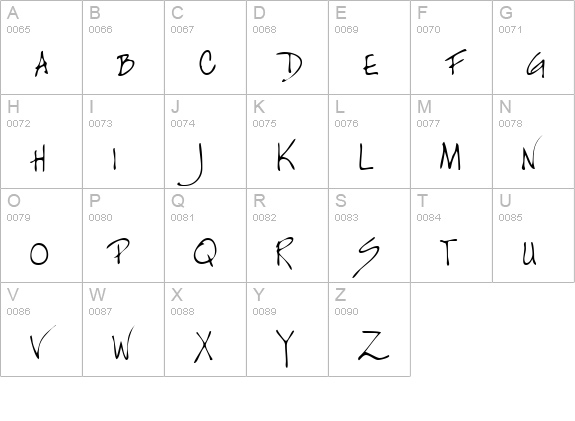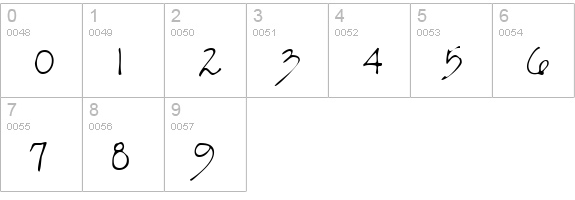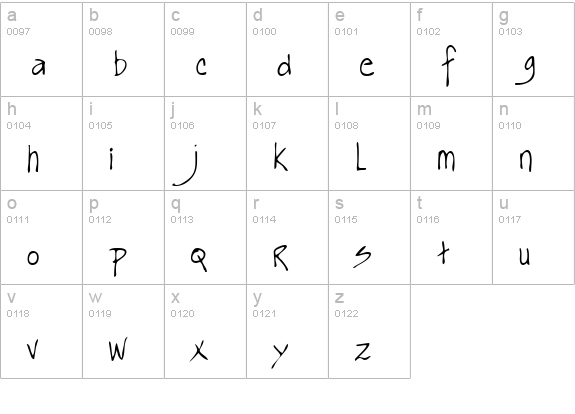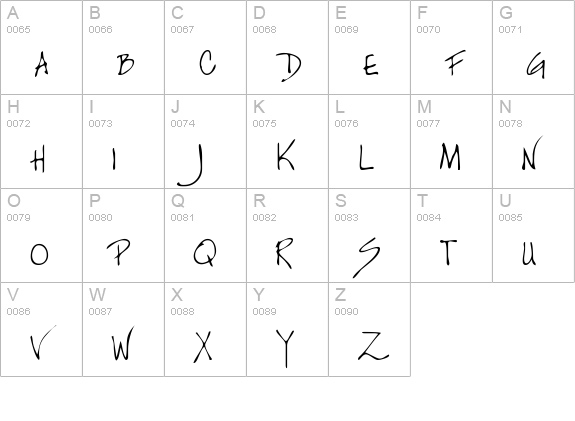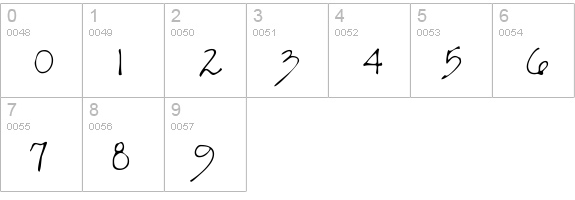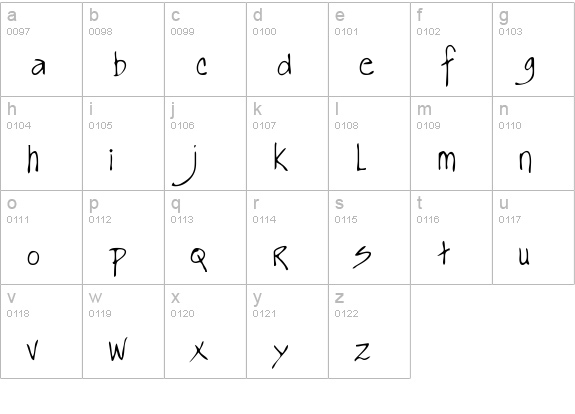
KianasHand Regular Font Details
KianasHand Regular is the standard, neutral variant in the KianasHand typeface family \xE2\x80\x94 well suited to general body text, paragraphs, and standard typographic work.